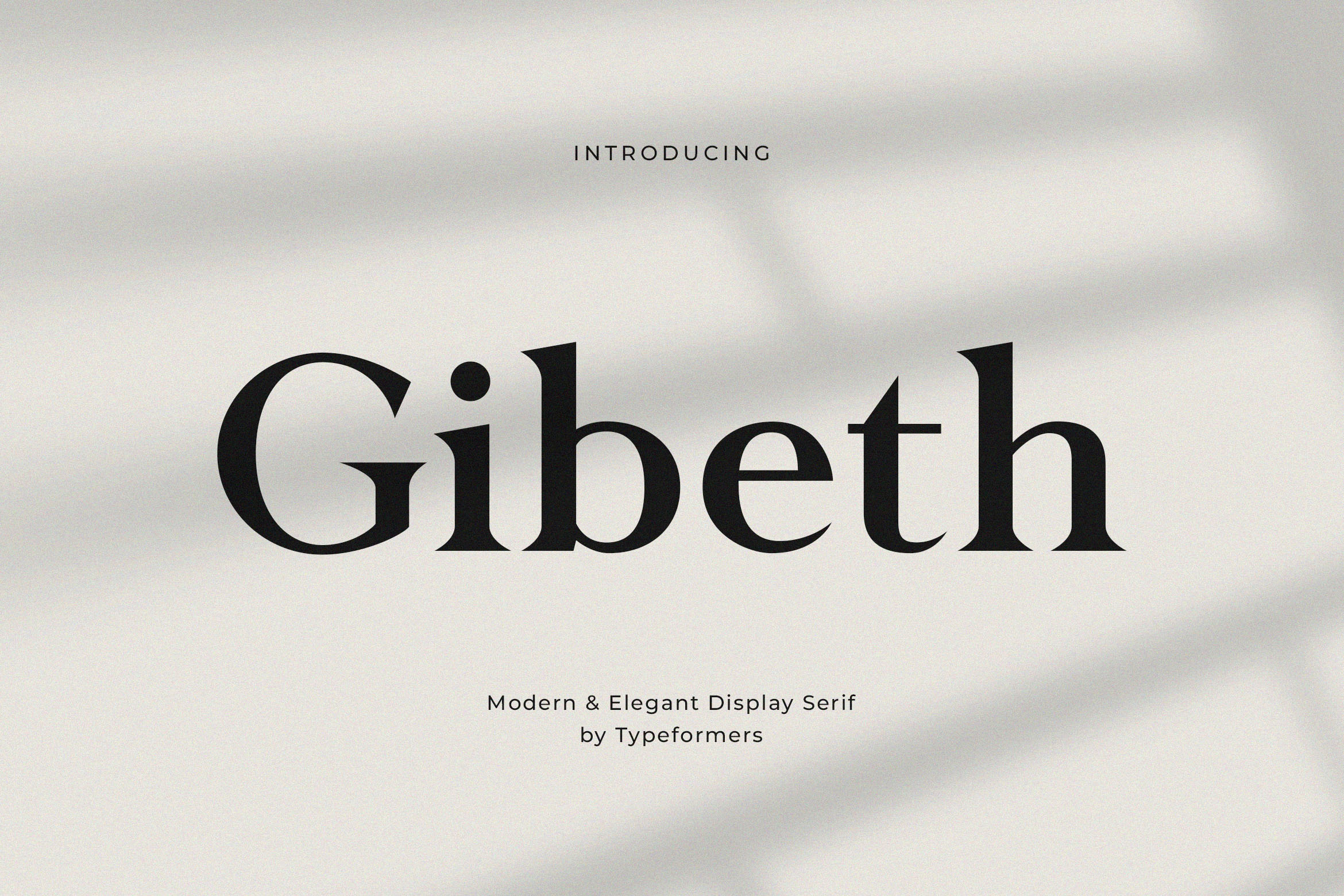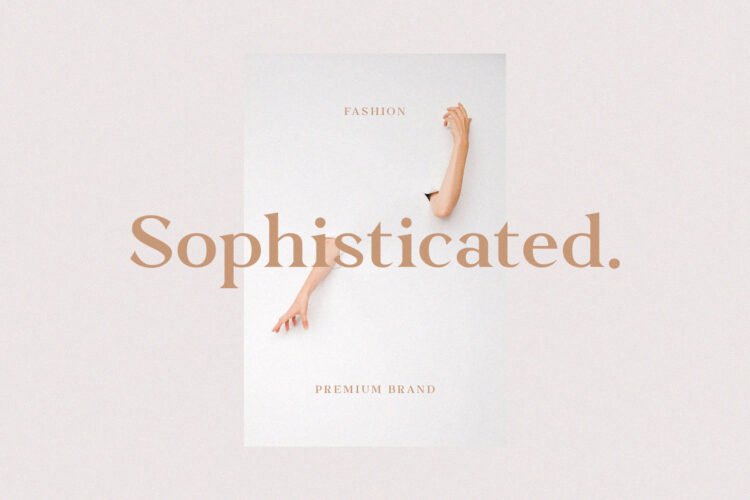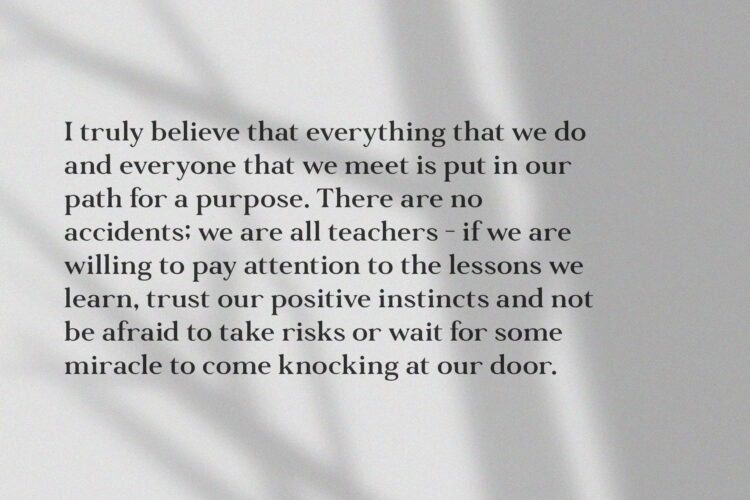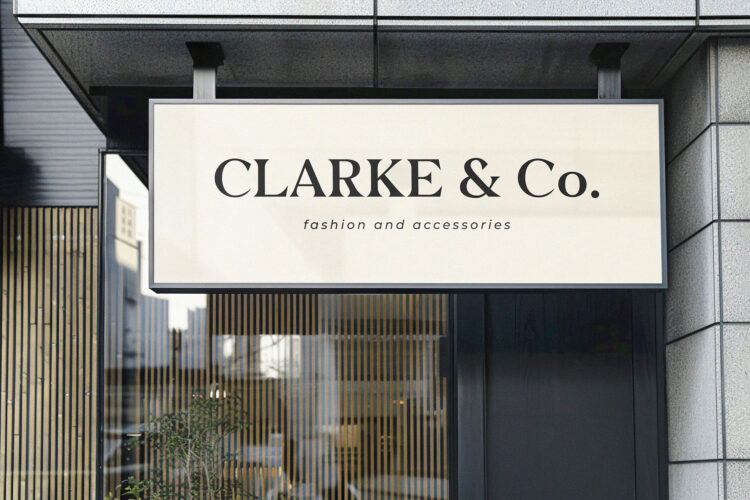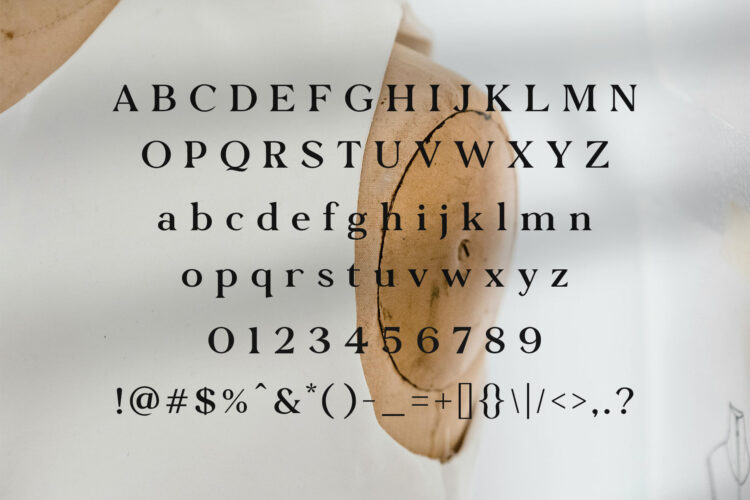
Introducing Gibeth – Modern Elegant Serif.
Gibeth is a modern and simple font, best used as a display for headings, logos, branding, magazines, product packaging and invitations.